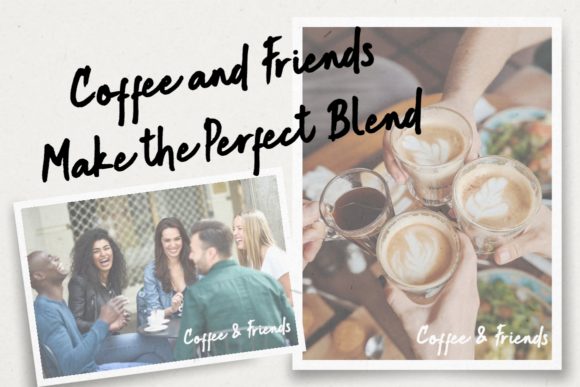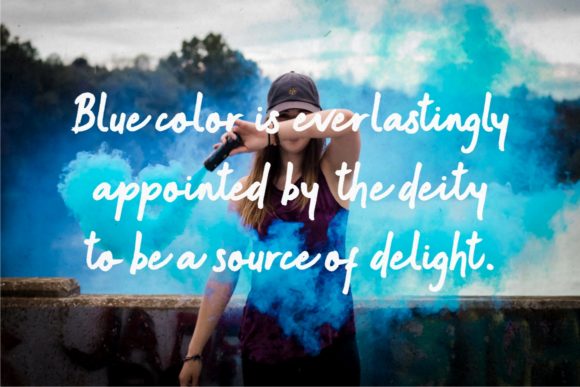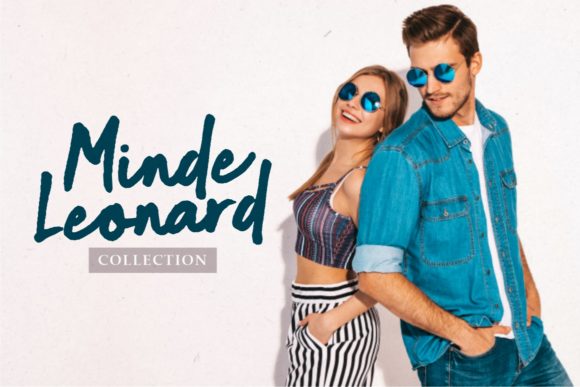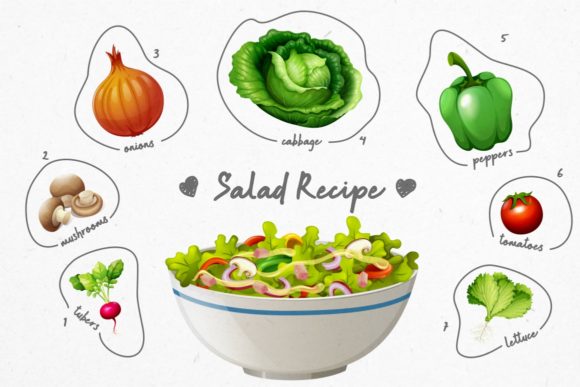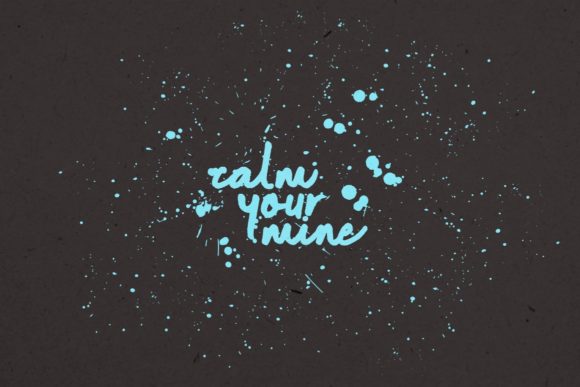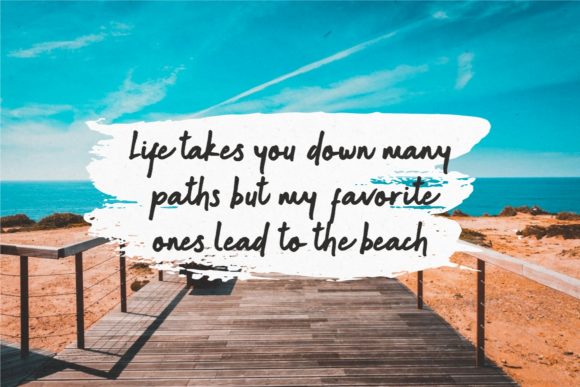
Introduction to Joy Friends Font
Do you ever have those moments when you’re working on a creative project and you just can’t seem to find the perfect design element to bring it all together? Maybe you’re crafting a DIY card for a loved one, or designing a logo for a new business, and you’re searching for that special something to make it truly shine. That’s where the Joy Friends Font comes in – a beautiful display font that’s carefully handcrafted to become a true favorite.
As a designer, you know the value of having high-quality design resources at your fingertips. The Joy Friends Font is a free download that’s perfect for adding a touch of elegance and whimsy to any creative project. With its transparent background and versatility, it’s a must-have for anyone looking to elevate their designs.
Key Features of Joy Friends Font
- High-quality, hand-drawn design suitable for a variety of creative projects, including digital art and print materials.
- Comes with a transparent background, making it easy to overlay on different backgrounds and designs.
- Size: Includes a range of font sizes and styles, from bold to regular, to suit various design needs.
- Perfect for designers and artists looking for a unique and versatile design resource for their next creative project.
Honest Review: Joy Friends Font
As a designer, I’m always on the lookout for high-quality design resources that can elevate my creative projects. The Joy Friends Font has caught my attention, and I’m excited to share my honest review.
- Transparency: The Joy Friends Font offers a transparent background option, making it perfect for designers who want to create visually appealing graphics.
- High-Quality Design: The font’s design is clean, modern, and visually appealing, making it a great addition to any creative project.
- Limited Character Set: The Joy Friends Font has a limited character set, which may not be suitable for designers who need to use a wide range of characters.
Overall, I’m impressed with the Joy Friends Font’s design and transparency options. While it has some limitations, it’s a great resource for designers on a budget who want to create high-quality graphics. If you’re looking for a free font to add to your design arsenal, the Joy Friends Font is definitely worth considering.
Design Resource Details
The Joy Friends Font is a free download high quality design resource perfect for any creative project. With its unique and playful style, it’s ideal for adding a touch of personality to your designs.
Tips for Getting the Most Out of Joy Friends Font
To get the most out of the Joy Friends Font, be sure to experiment with different font sizes, colors, and combinations to create unique and eye-catching designs. You can also use the font in conjunction with other design elements, such as images and graphics, to add depth and interest to your designs.
Common Use Cases for Joy Friends Font
The Joy Friends Font is ideal for a wide range of creative projects, including social media graphics, blog posts, and marketing materials. It’s also a great choice for designers who want to add a playful and whimsical touch to their designs.